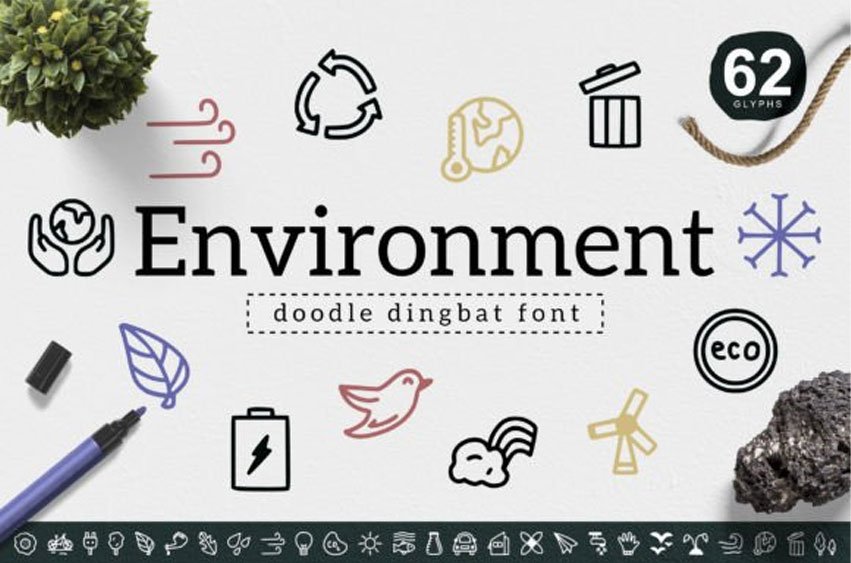
Environment Dingbat Font is a cute and useful dingbats font perfect for a wide variety of projects.
Use it for stickers, posters, t-shirts, cards, apparel graphics, etc.; you will love the results!